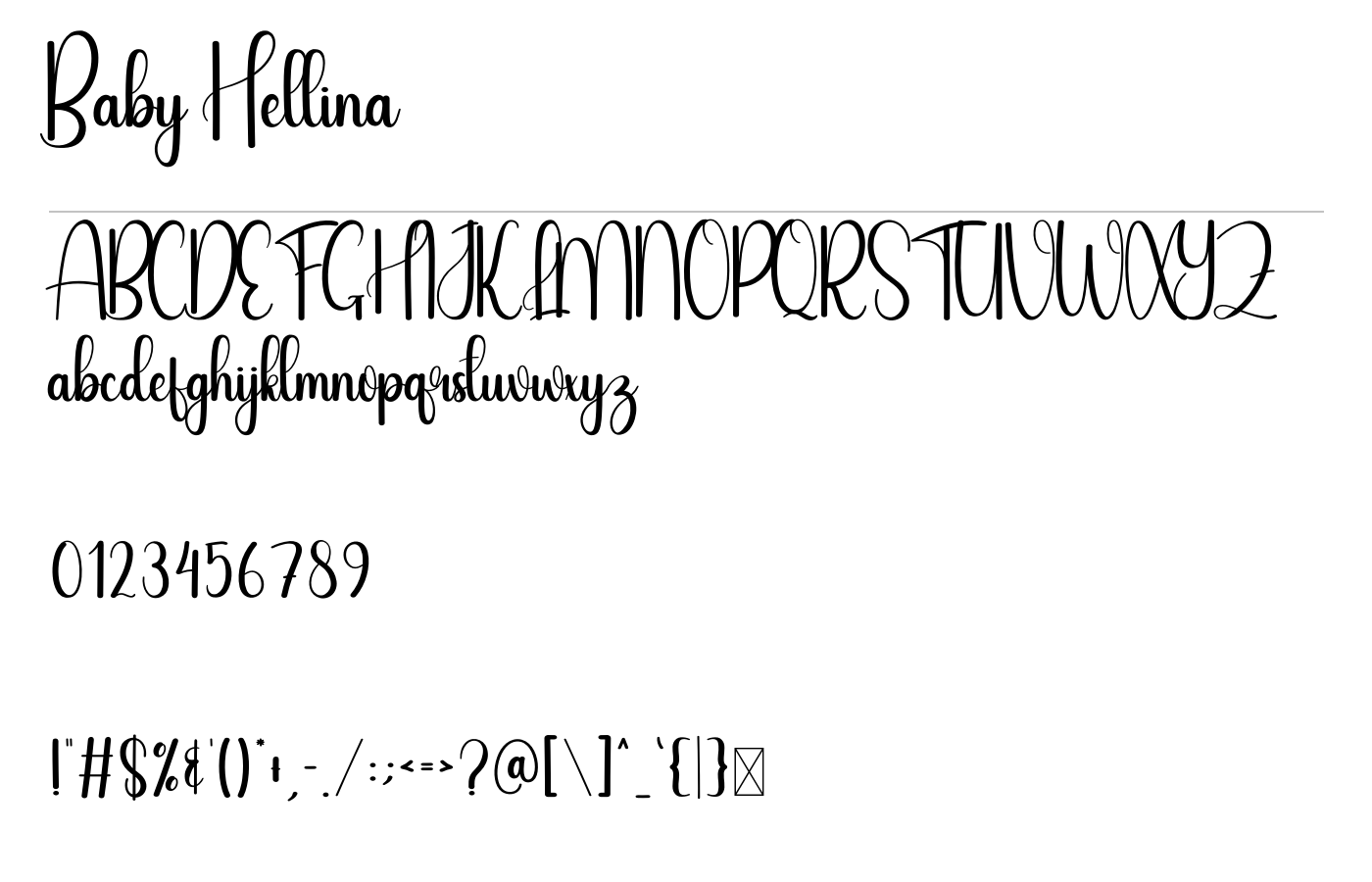
Baby Hellina is a playful and elegant script font featuring tall, slender letterforms with smooth, flowing curves and a charming hand-drawn feel. Its narrow width and delicate strokes make it ideal for stylish invitations, branding, and decorative headlines that need a touch of whimsy and sophistication. This font’s unique blend of casual grace and refined detail works beautifully for fashion, beauty, and creative projects that want to convey a friendly yet polished personality.
Baby Hellina Font
About Baby Hellina Font